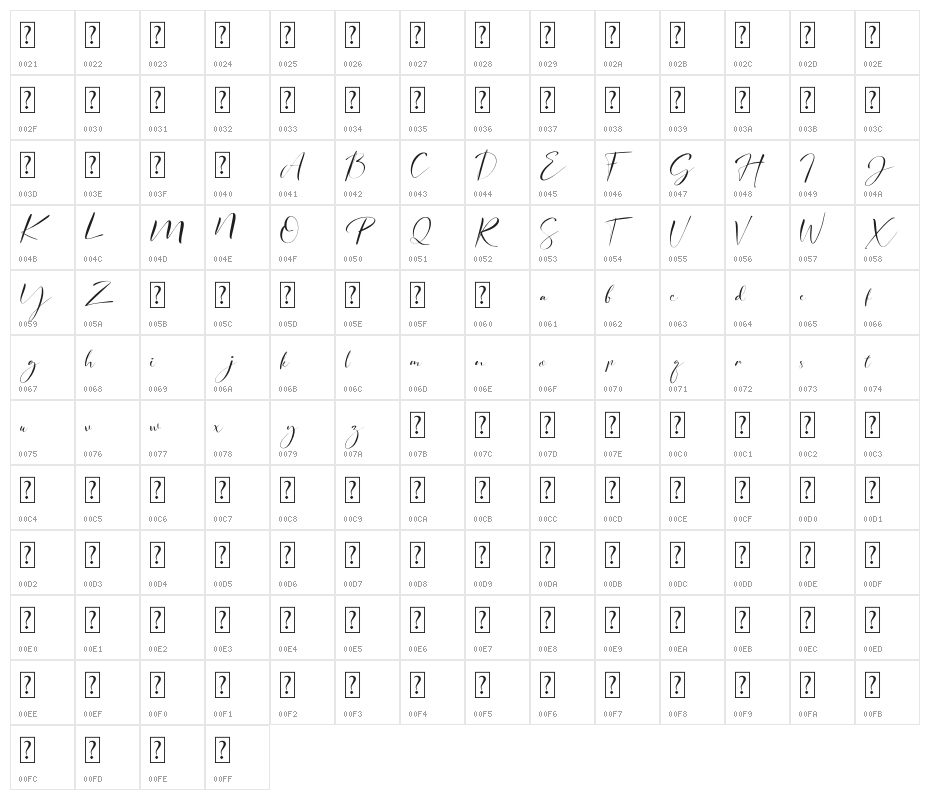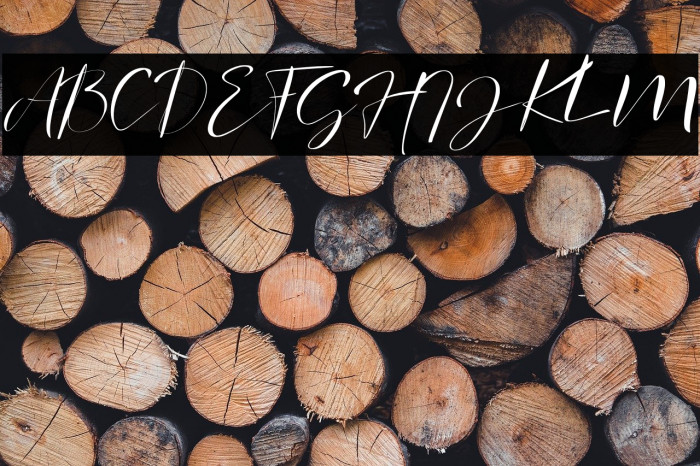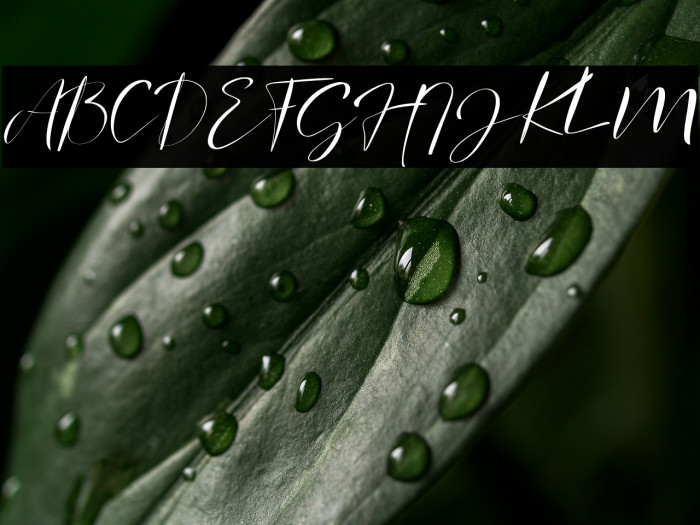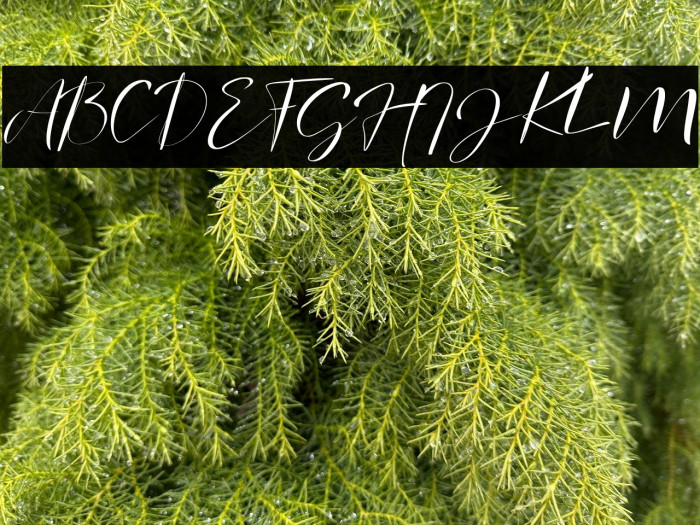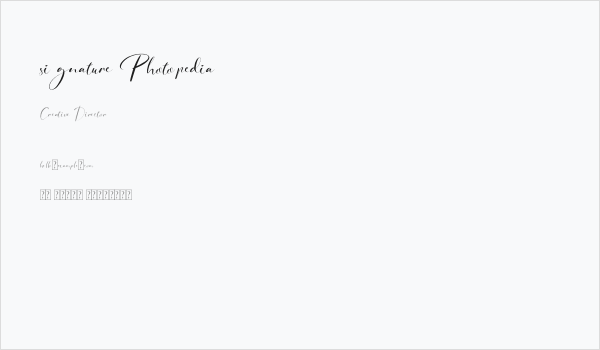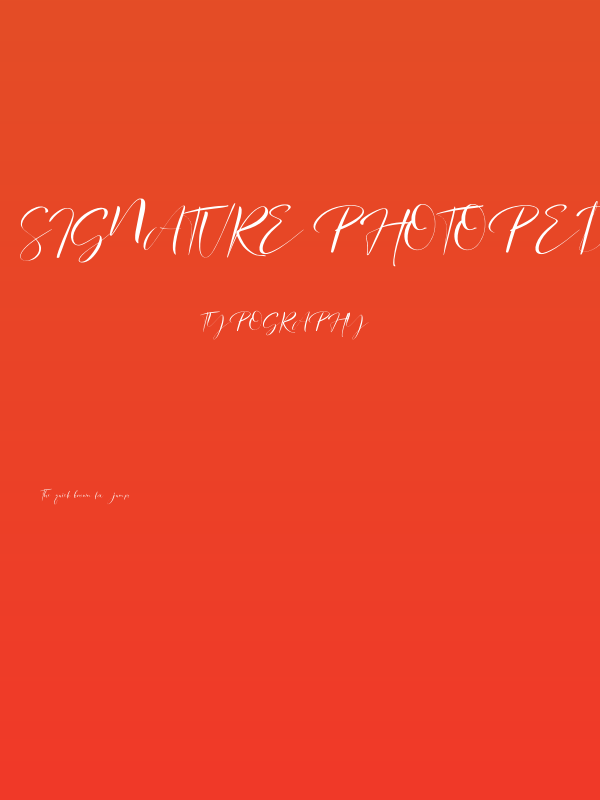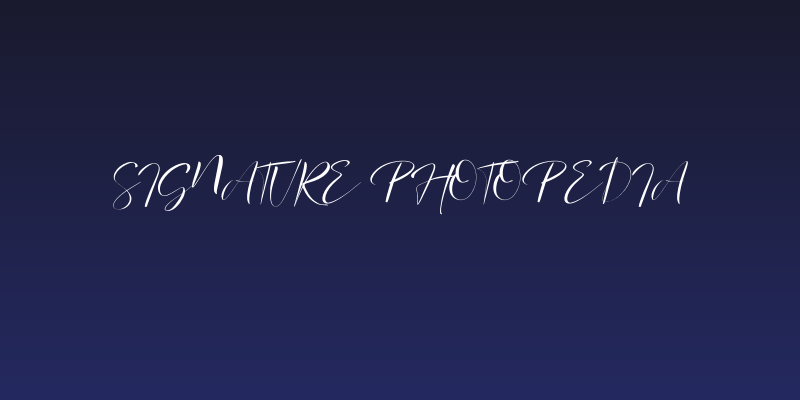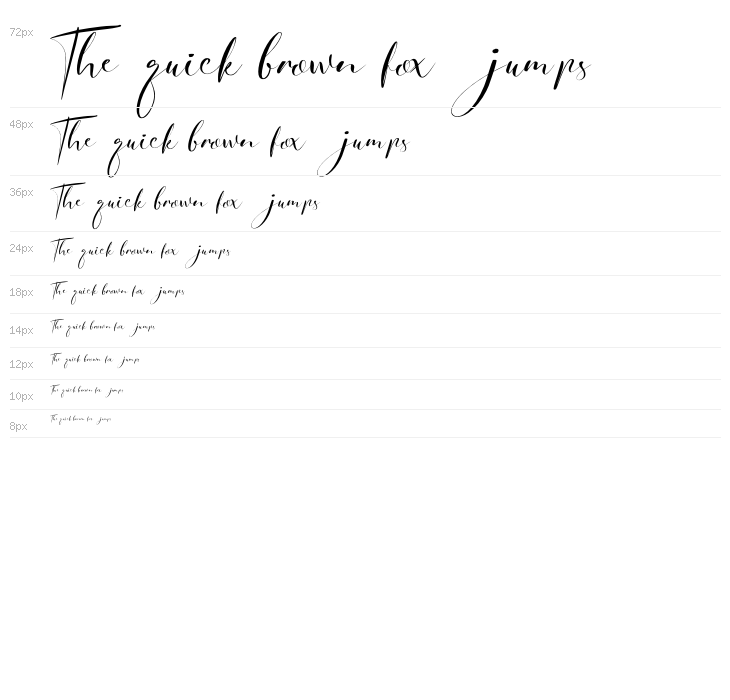
signature Photopedia Font
signature Photopedia Description
This elegant script font features flowing, cursive letterforms that exude a sense of sophistication and grace. The uppercase letters are characterized by their sweeping, elongated strokes and delicate loops, while the lowercase letters maintain a consistent fluidity with subtle variations in thickness. The font's overall appearance is reminiscent of traditional calligraphy, making it ideal for projects that require a touch of elegance and refinement. The absence of special characters suggests a focus on alphabetic expression, enhancing its suitability for personal signatures, invitations, and branding materials.
| Overall Style | Elegant, Calligraphic |
| Proposed Projects | Ideal for wedding invitations, personal branding, elegant logos, and high-end product packaging. |